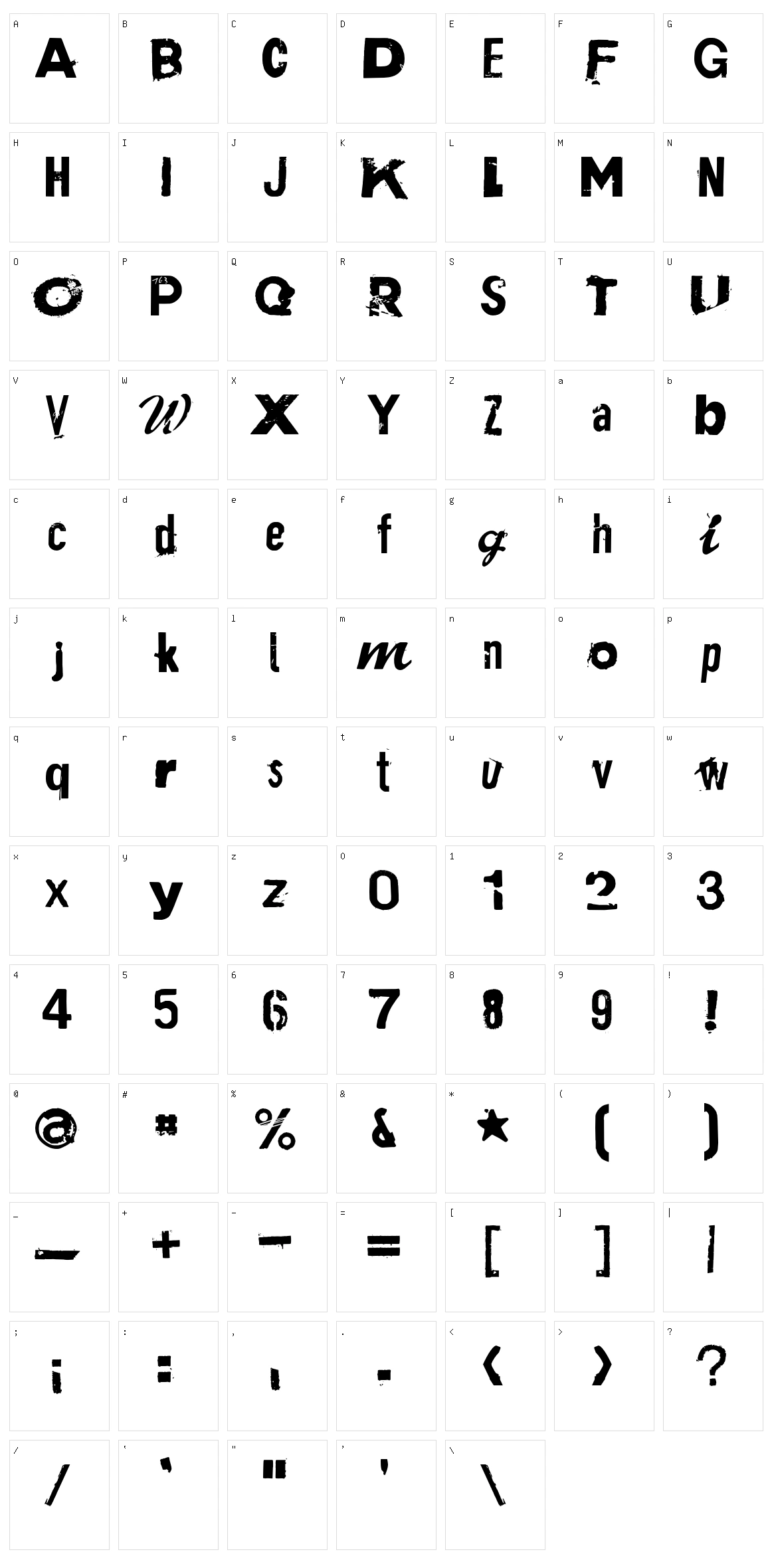
The free font Plakken is carefully designed by pheist, showcasing a thoughtful balance of creativity and usability and falls under the Destroy font style. When you download the ZIP file, it contains only 101.54 KB of font files, making it lightweight and quick to download. Please review the license details below to understand permitted usage and distribution rights. If license information is not available, we recommend using this font for personal projects only or contacting the author directly for commercial usage permissions.